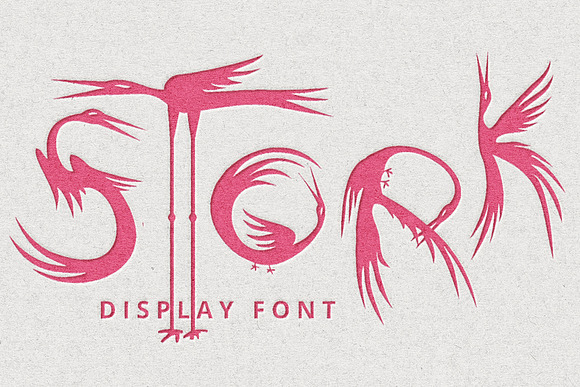
Stork Font
Stork Font is perfect for various design applications including baby announcement cards, maternity clinic branding, newborn photography studios, baby shower invitations, pediatric healthcare materials, children's boutique signage, family planning services, birth center communications, infant care product packaging, and gentle parenting brand identities. This graceful typeface excels in projects requiring tender elegance and new life celebration that captures the joy, anticipation, and precious moments surrounding the arrival of new babies.
What makes Stork Font so exciting is its elegant embodiment of new beginnings and gentle grace through letterforms that suggest the delicate beauty of expectant families and the tender arrival of precious new life. The font features graceful curves reminiscent of a stork's elegant silhouette, flowing lines that evoke nest-building and nurturing care, and refined proportions that communicate the sophisticated joy of welcoming new family members. Its distinctive gentle character and celebratory elegance make it perfect for brands serving expectant families and celebrating the miraculous journey from pregnancy through early childhood.
Stork Font family includes elegant regular and bold weights, along with decorative and ornamental versions that enhance its versatility for different family celebration applications. Each style maintains the font's signature graceful character while providing options for various tender design approaches. The family also features baby-themed decorative elements, gentle flourishes, and family celebration symbols that can be combined with the letterforms to create cohesive new life design systems.
Whether you're developing maternity services, baby products, or family celebration communications, Stork Font Free Download provides elegant typography that honors the sacred journey of new life and celebrates the tender moments of growing families. This typeface transforms ordinary communications into precious keepsakes that commemorate life's most meaningful milestones. The font's graceful appeal makes it particularly effective for maternity healthcare providers, baby product companies, and family service professionals targeting expectant parents who appreciate elegant, meaningful design.
Stork Font stands out by delivering authentic celebration of new life that feels genuinely tender rather than artificially cute or overly commercial. Its carefully crafted graceful proportions and elegant details ensure that designs feel appropriately precious while maintaining professional credibility for healthcare and family service contexts. From birth announcements to maternity clinic branding, this font provides designers with tools to create communications that celebrate the miracle of new life and inspire appreciation for family beginnings through elegant, life-celebrating typography that honors precious moments.